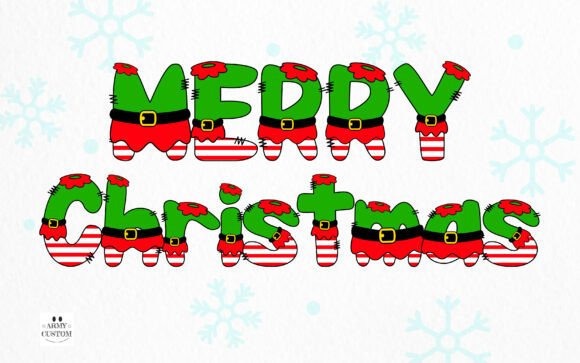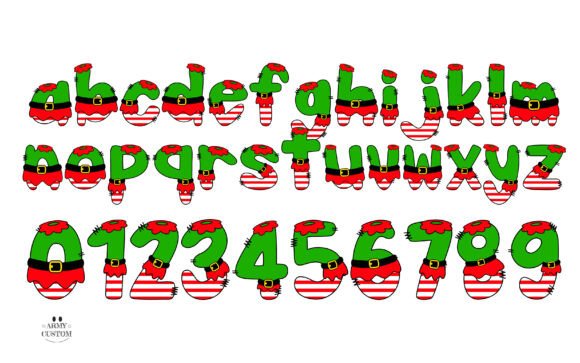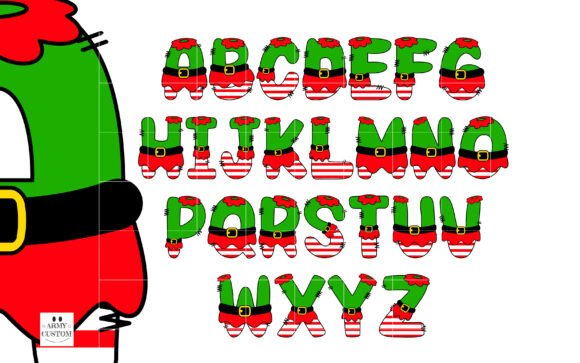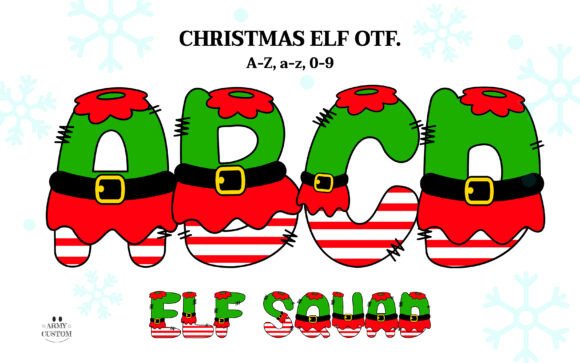
Introducing the Elf Font: A Whimsical Addition to Your Holiday Design Toolkit
Are you looking for a font that captures the essence of the holiday season? Look no further than the Elf Font, a playful and jovial font that’s sure to add a dash of merriment to any design project. Inspired by the adorable antics of Santa’s helpers, this font is a joyous celebration of the holiday season.
A Font that’s Full of Whimsy
The Elf Font is imbued with a sense of whimsy, making it a perfect addition to your holiday design toolkit. Its playful style is ideal for creating vibrant holiday decorations, adding a personal touch to gifts, or simply bringing a smile to someone’s face. Whether you’re a designer, crafter, or simply someone who loves the holiday season, this font is sure to delight.
What Makes the Elf Font So Special?
So, what sets the Elf Font apart from other holiday fonts? Here are just a few features that make it a standout:
- Playful Design: The Elf Font is designed to be fun and playful, with a jovial style that’s sure to bring a smile to someone’s face.
- Holiday Cheer: Inspired by the adorable antics of Santa’s helpers, this font is a joyous celebration of the holiday season.
Using the Elf Font in Your Designs
So, how can you use the Elf Font in your designs? Here are just a few ideas to get you started:
- Holiday Decorations: Use the Elf Font to create vibrant holiday decorations, such as signs, banners, and gift tags.
- Gift Ideas: Add a personal touch to gifts with custom labels, cards, and gift wrapping featuring the Elf Font.
- Social Media Graphics: Use the Elf Font to create festive social media graphics, such as holiday-themed Facebook posts and Instagram stories.
- Digital Designs: Incorporate the Elf Font into your digital designs, such as holiday-themed party invitations, flyers, and brochures.
The Elf Font is a playful and whimsical addition to any holiday design toolkit. With its jovial style, versatility, and compatibility with a range of software and cutting machines, this font is sure to delight designers, crafters, and DIY enthusiasts alike. Whether you’re looking to create vibrant holiday decorations, add a personal touch to gifts, or simply bring a dash of merriment to your designs, the Elf Font is the perfect choice. So why wait? Indulge in the spirit of the holiday season with this charming, elfish font.